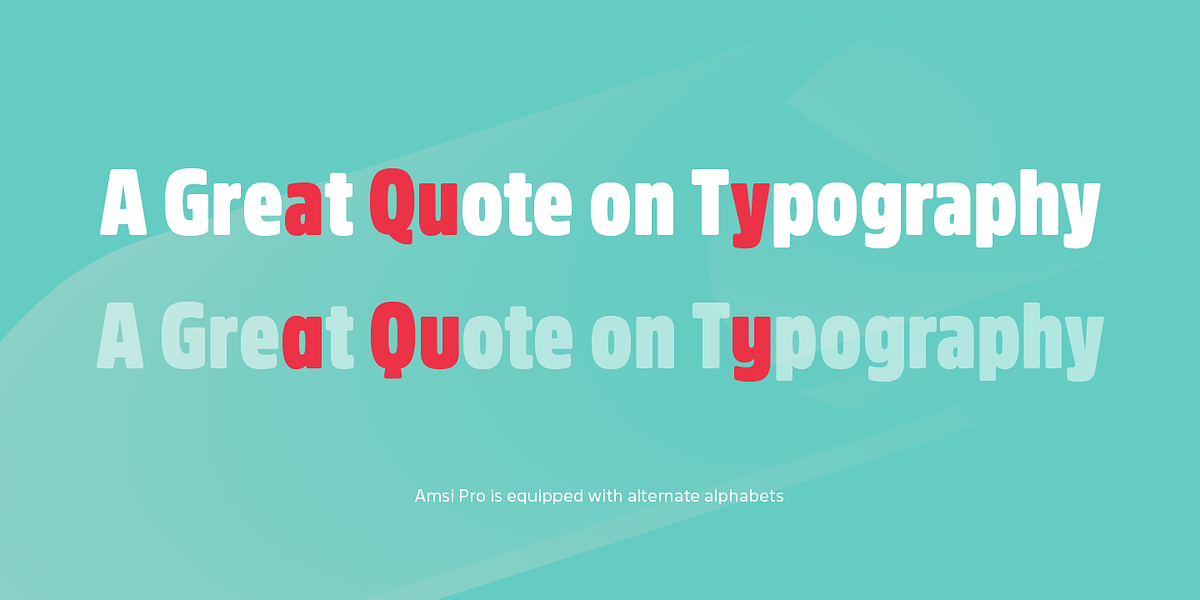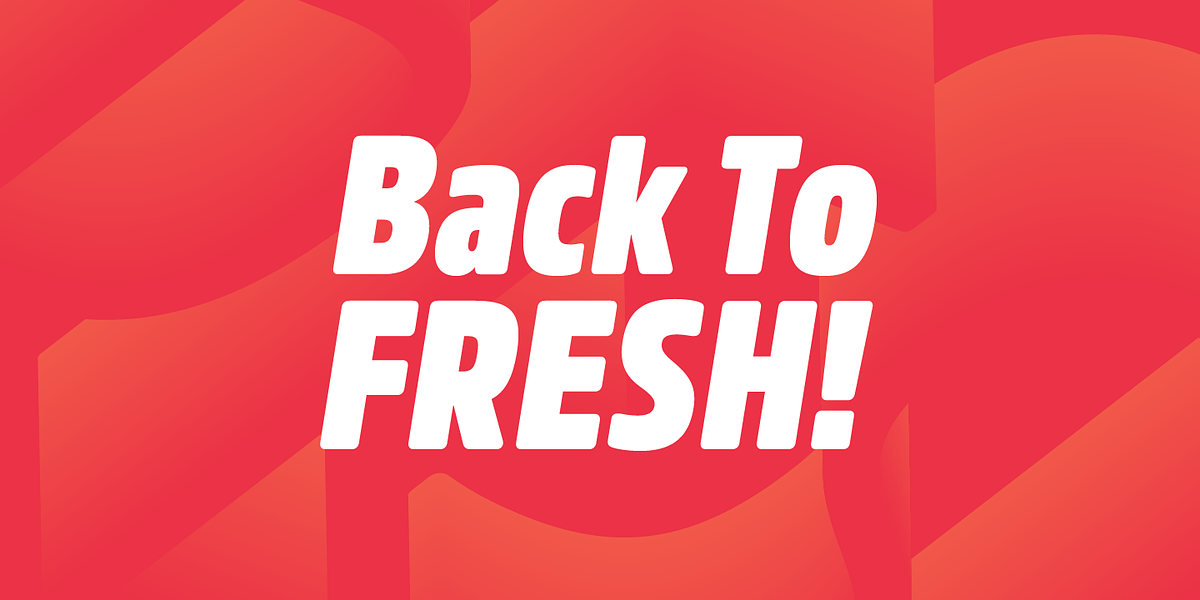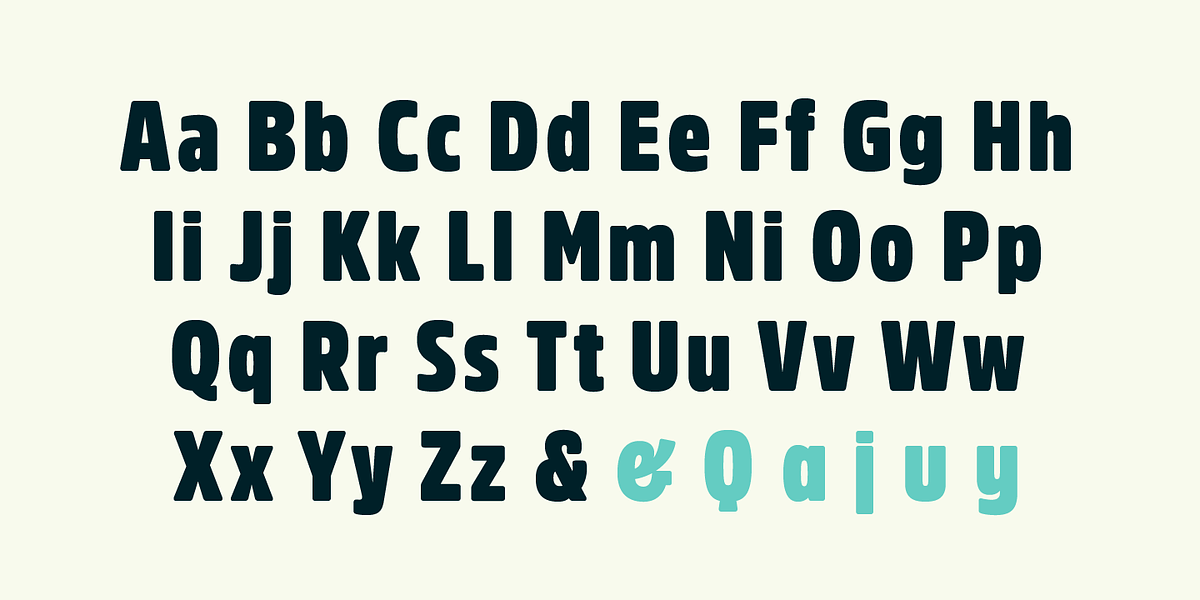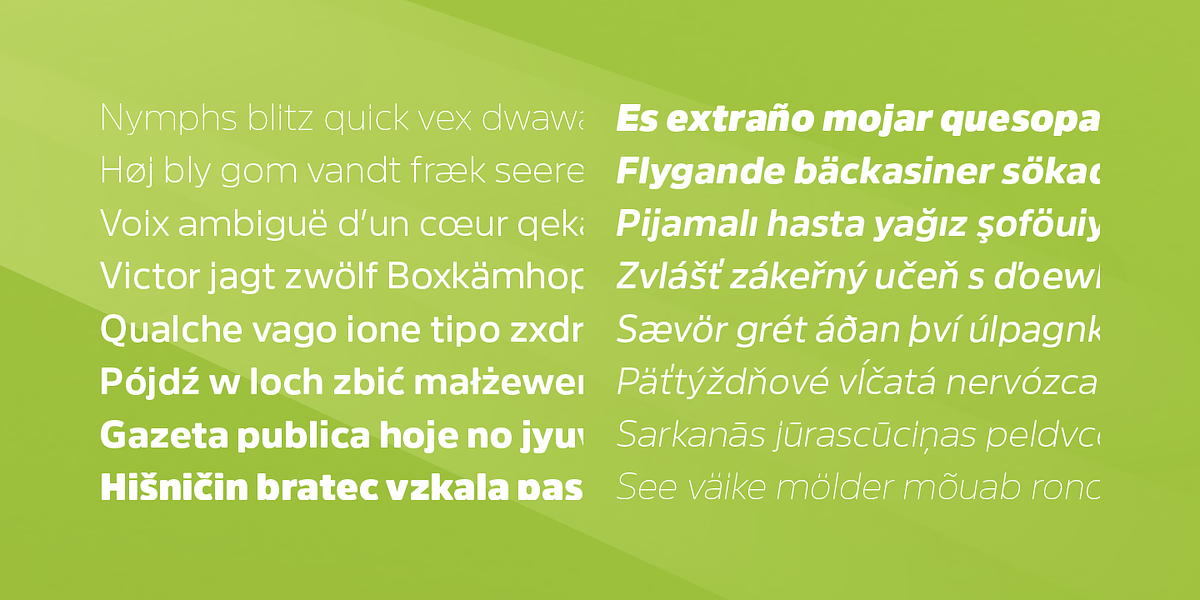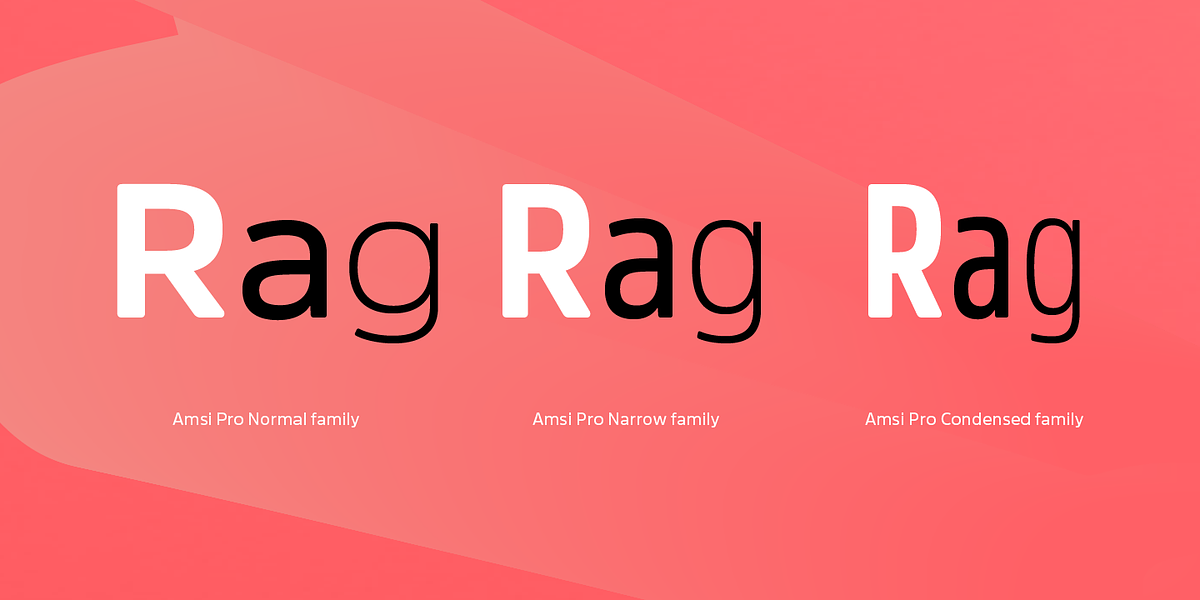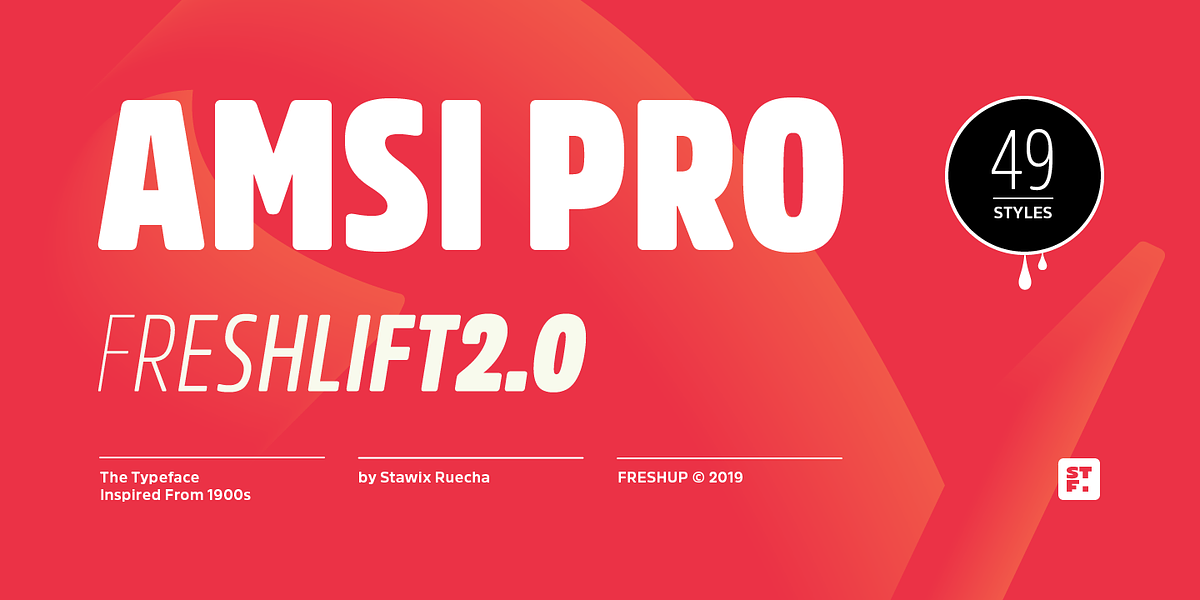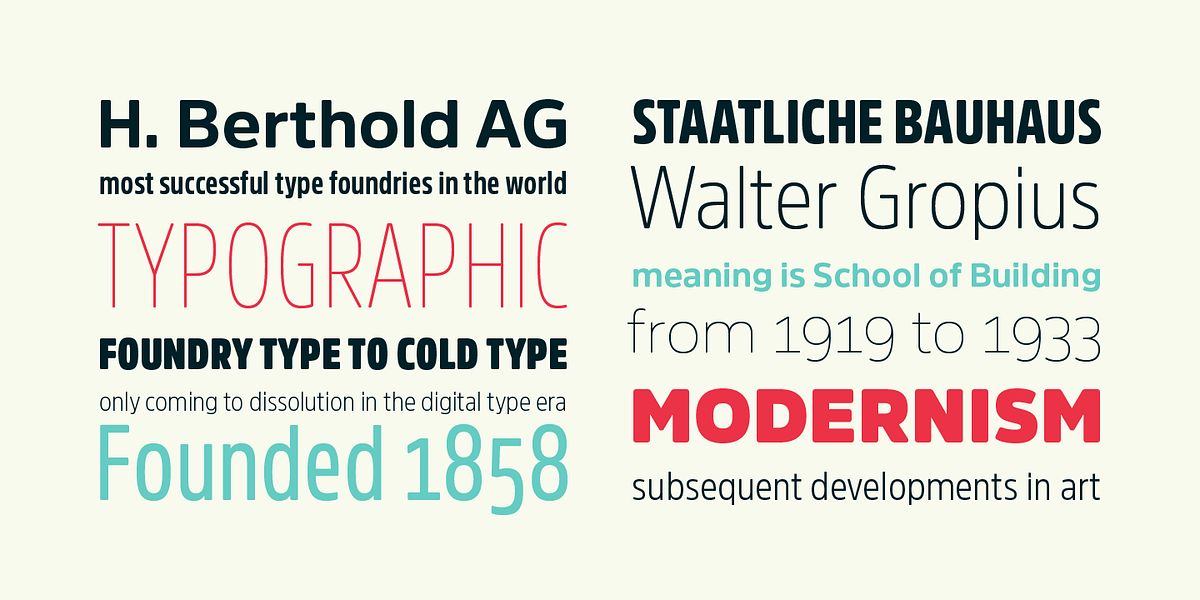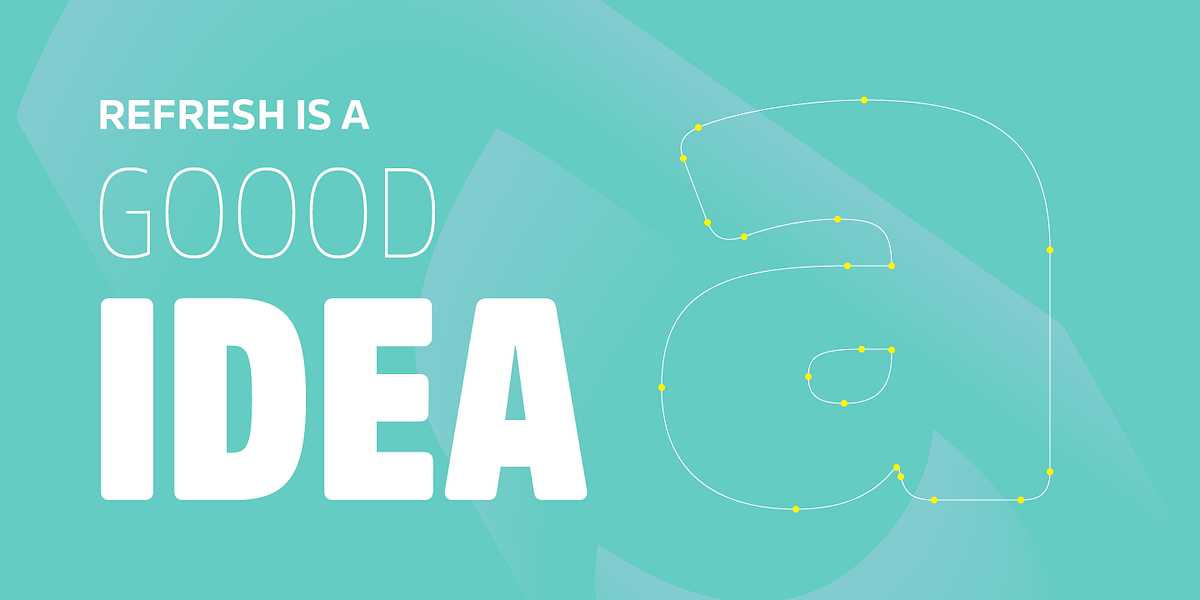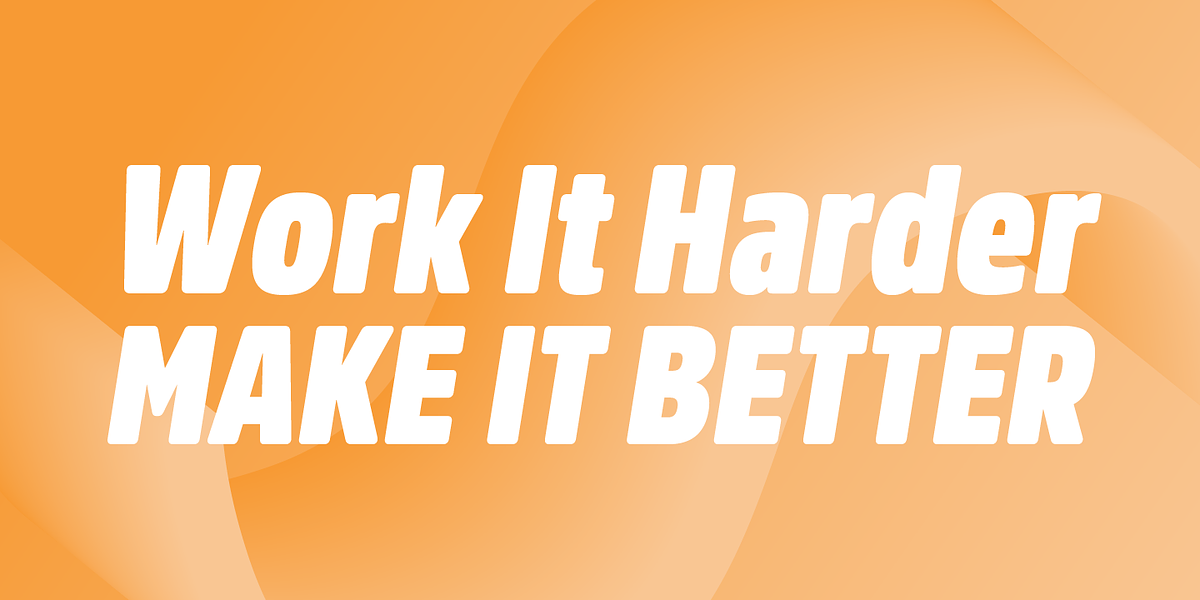
Amsi Pro
Amsi Pro is a neo-grotesque sans serif font designed for versatility. It offers a range of weights from Thin to Heavy and widths including Normal, Narrow, and Condensed. This makes it suitable for both display applications like headlines and body text in paragraphs.